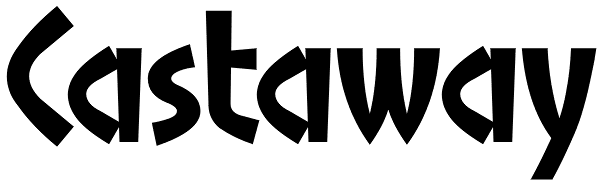
Castaway
Fun, footloose and fancy free, Castaway is a font family that knows no boundaries: equally at home in Naples and Nairobi, Rimini and Rio, Tijuana and Timbuktu. It was inspired by those ‘far away places with strange sounding names’, and will bring a...
Castaway Italic
Castaway